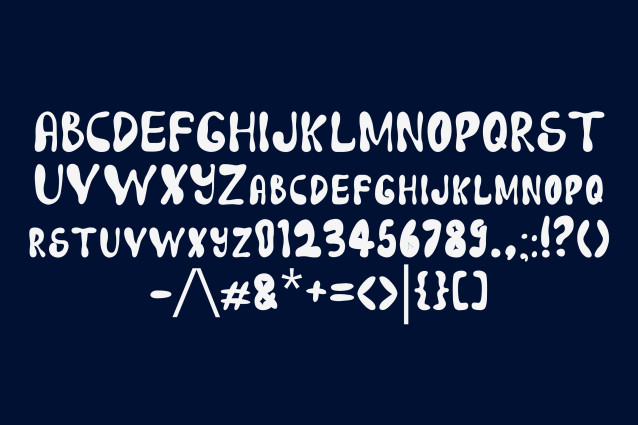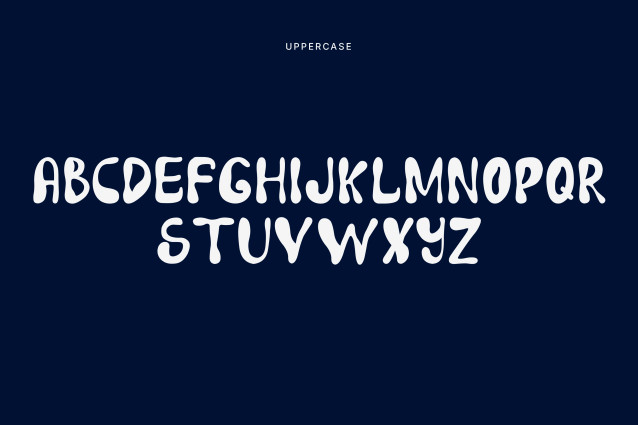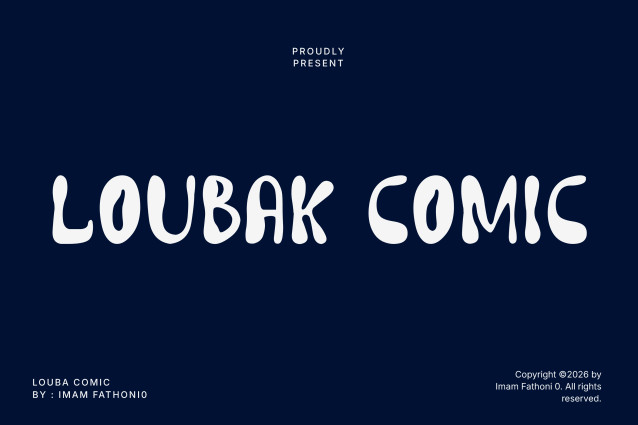
Loubak Comic is Poppin Balloon is a bold, funky display font with plump, rounded letterforms that look like they’re inflated and ready to float away. Built for fun, high-energy designs, it brings a bouncy, celebratory feel to any project with its chunky curves and playful rhythm between letters.
Perfect For
Birthday party invitations, kids’ branding, candy and toy packaging, carnival and circus posters, banners and party decor, greeting cards, social media headers, playful logos, children’s book titles, festive merchandise.